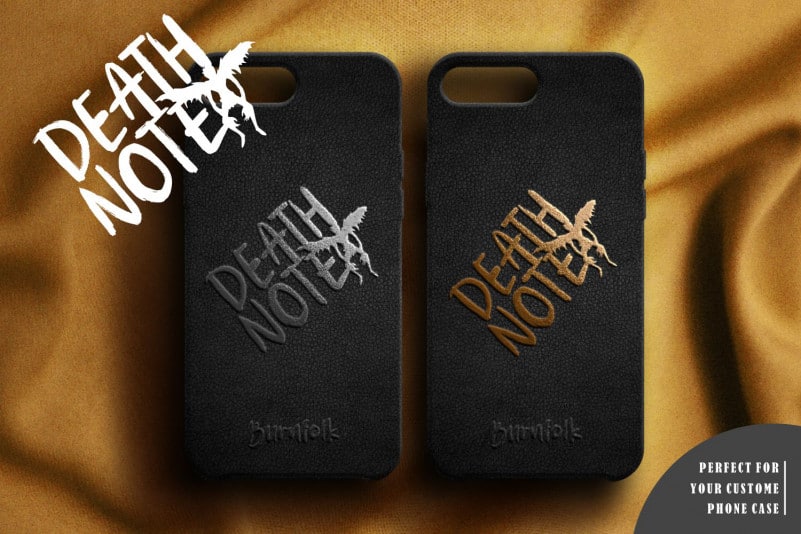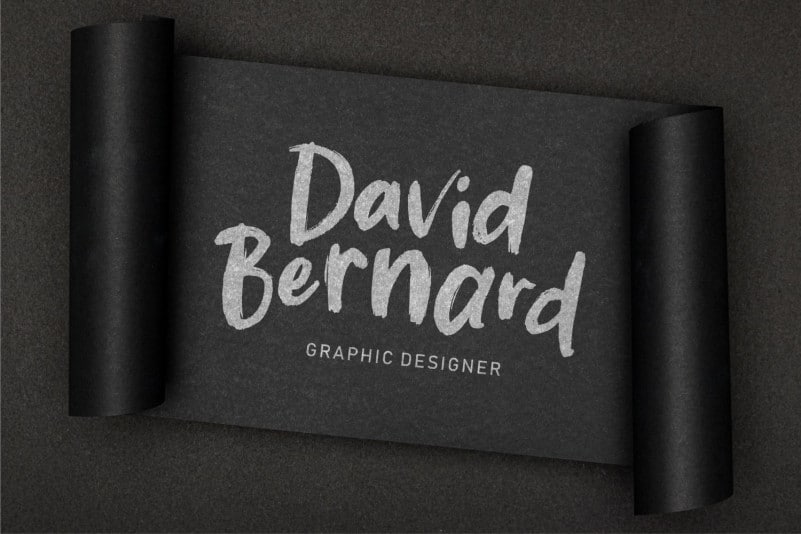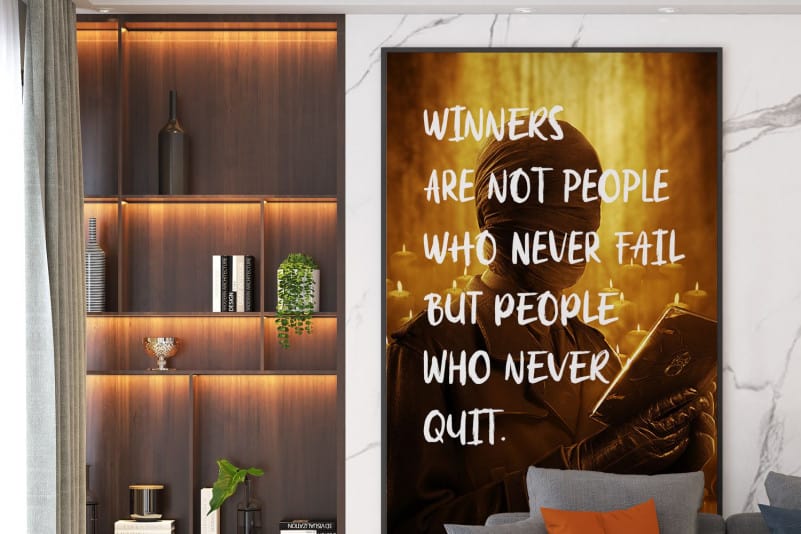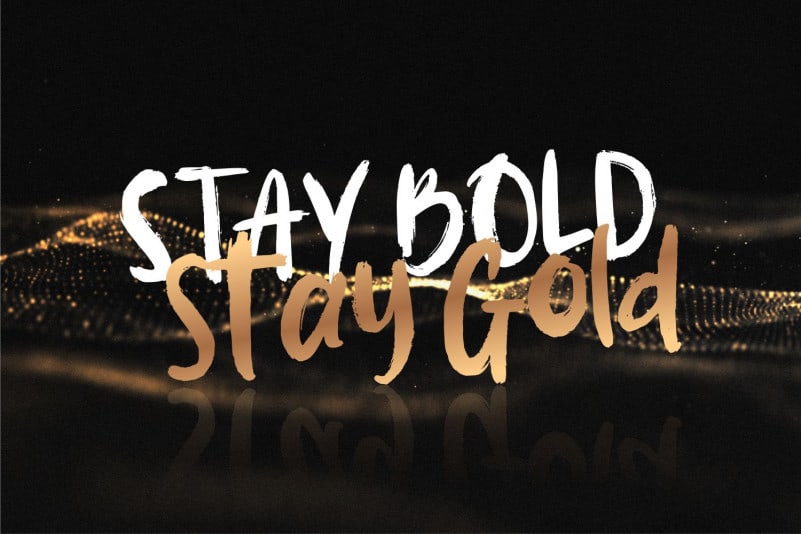
BURNFOLK Brush Font
BURNFOLK Brush Font is a neat brushed display font. Trendy and incredibly cute, this font will look like a real piece of art on a variety of design ideas. Add it confidently to your projects, and you won’t be disappointed.